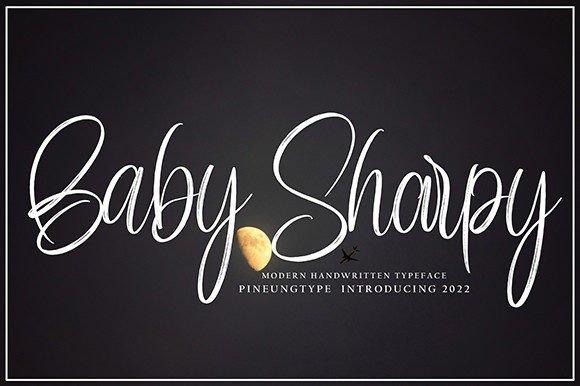
Get Ready to Fall in Love with the Perfect Handwritten Font
Have you ever sat at your desk, surrounded by blank papers, and suddenly, a burst of creativity strikes? You’re thinking about the perfect font to make your project stand out. That’s exactly what happened to us when we stumbled upon the Baby Sharpy Font. Its fresh and flowing handwritten style instantly captured our hearts.
| 📌 Product Name | Baby Sharpy Font |
| 👤 Author | Pineungtype & Missinklab |
But what makes Baby Sharpy Font so special? It’s perfect for a wide range of projects, from quotes and logos to blog headers, posters, and invitations. With its unique style, it’s the perfect addition to any design. Whether you’re a seasoned designer or just starting out, Baby Sharpy Font is a valuable tool to have in your arsenal.
Baby Sharpy Font Key Features
- Font Family: Baby Sharpy
- Font Styles: Regular, Italic, Bold, Bold Italic
- Unique Characteristics: Baby Sharpy is a distressed, handwritten font with a vintage feel, ideal for creative projects and designs that require a unique, handcrafted look
Baby Sharpy Font Review
At first glance, Baby Sharpy Font seems like a cute and playful addition to any design project. ✨ The font’s rounded edges and soft lines evoke a sense of whimsy and friendliness. It’s perfect for projects targeting a younger audience, such as children’s books, toy packaging, or nursery decor.
One of the strengths of Baby Sharpy Font is its versatility. ✨ It comes in a range of weights and styles, allowing designers to customize their projects to suit different needs. The font also works well in both digital and print formats, making it a great choice for designers who need to adapt their work across multiple platforms.
- ⚠️ The font’s rounded edges can make it difficult to read in certain contexts, such as body text or long paragraphs.
- ⚠️ Baby Sharpy Font may not be the best choice for projects that require a more sophisticated or professional tone.
- ⚠️ Some users have reported issues with font rendering, particularly in certain operating systems or browsers.
Overall, Baby Sharpy Font is a fun and engaging choice for designers who need a playful, child-friendly font. While it may have some limitations, its versatility and range of styles make it a valuable addition to any design toolkit.
Here are a few tips for using Baby Sharpy Font effectively:
- Use Baby Sharpy Font for headings and titles to add a touch of whimsy and playfulness.
- Combine Baby Sharpy Font with other fonts to create a unique and eye-catching design.
- Experiment with different font sizes and colors to find the perfect balance for your project.
Baby Sharpy Font is perfect for:
- Children’s book illustrations and designs.
- Playful advertisements and marketing materials.
- Whimsical wedding invitations and decorations.
Comparison to Baby Sharpy Font: Great Vibes has a more elegant and refined feel compared to Baby Sharpy’s bold and edgy look. While Baby Sharpy is better suited for edgy and trendy designs, Great Vibes is more versatile and can be used in a wider range of applications.
Comparison to Baby Sharpy Font: Playball has a more dynamic and expressive feel compared to Baby Sharpy’s straightforward and bold look. While Baby Sharpy is better suited for modern and trendy designs, Playball is more suitable for designs that require a sense of movement and energy.